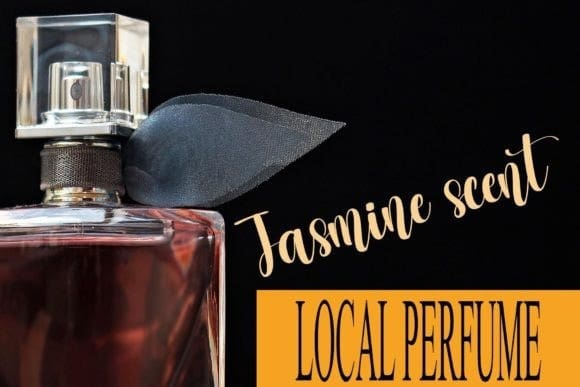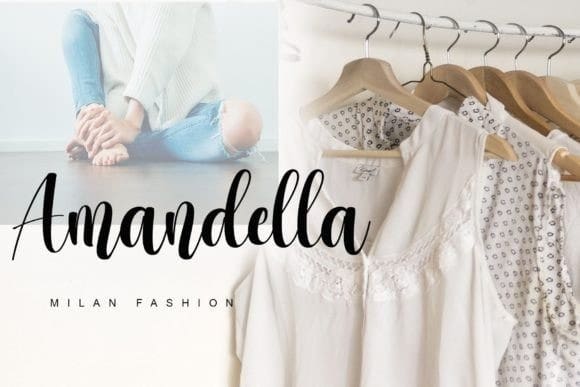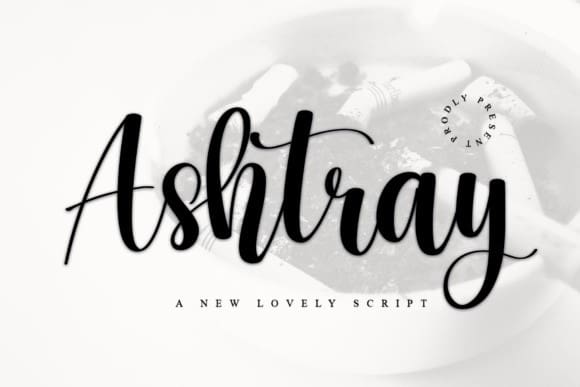
Ashtray Script Font
Ashtray Script Font is a delicate, elegant, and flowing handwritten font. It has beautiful and well-balanced characters, and as a result, it matches a wide pool of designs. Add it to your most creative ideas, and notice how it makes them come alive!